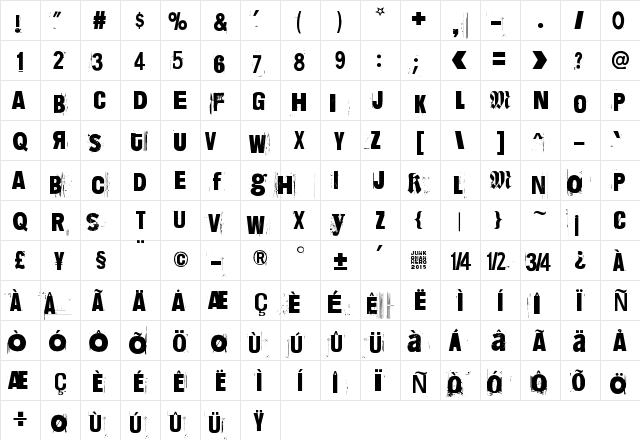
Dimension Zero Regular
Design Context for Dimension Zero Typeface
Dimension Zero is a composed and adaptable typeface that performs quietly and consistently across a wide range of design contexts.